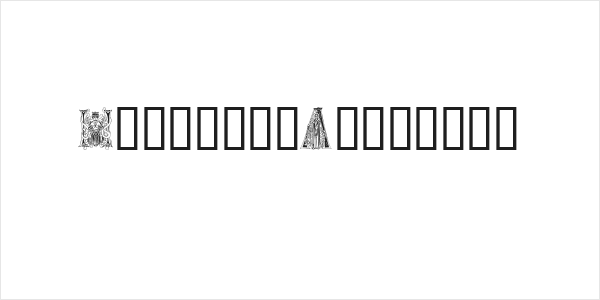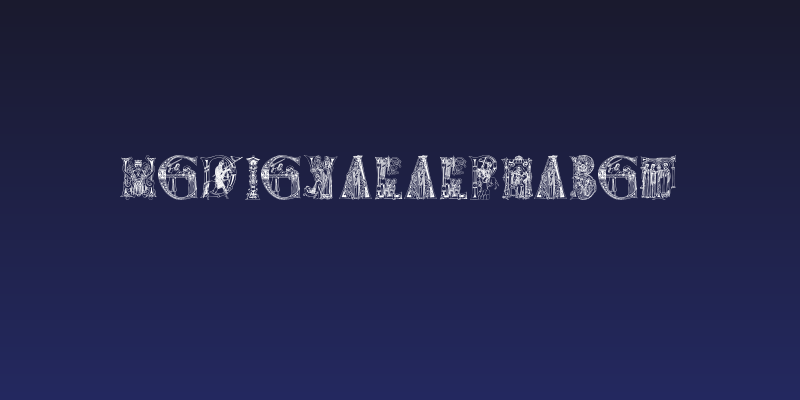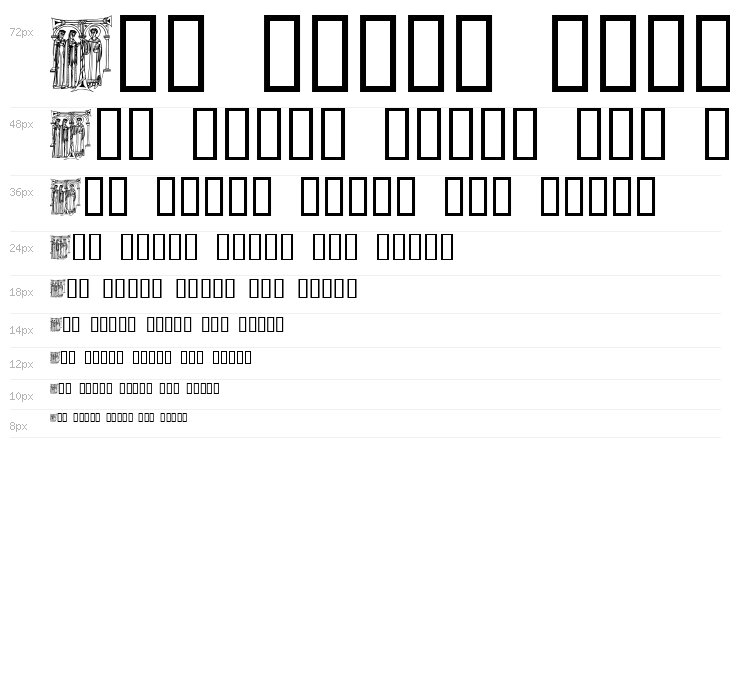
MedievalAlphabet Font
MedievalAlphabet Description
This font is a highly decorative and intricate design, reminiscent of medieval manuscripts. Each letter is adorned with elaborate illustrations and motifs, often incorporating elements such as knights, mythical creatures, and ornate patterns. The style is rich in detail, capturing the essence of historical artistry. The uppercase letters are the primary focus, with each character uniquely crafted to stand out as a piece of art. This font is ideal for projects that require a touch of historical elegance and visual complexity.
| Proposed Projects | Ideal for historical-themed posters, book covers, fantasy game titles, and decorative certificates. |